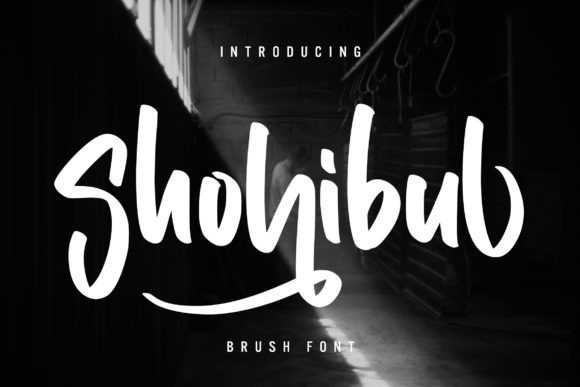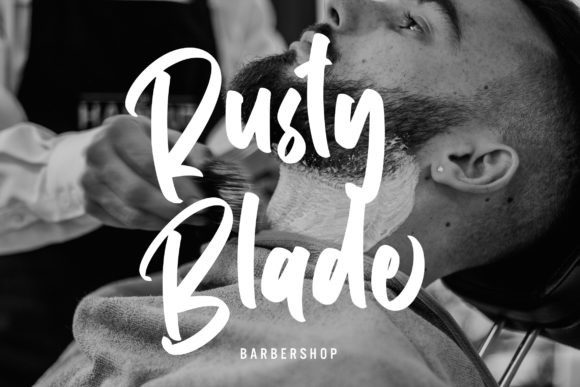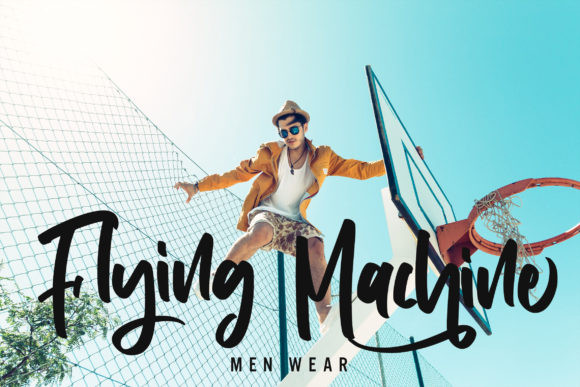
Shohibul Font
Shohibul is a bouncy and quirky handwritten font. It will add a fresh and contemporary touch to your designs. Add this unique display font to each of your creative ideas and notice how it makes them stand out!